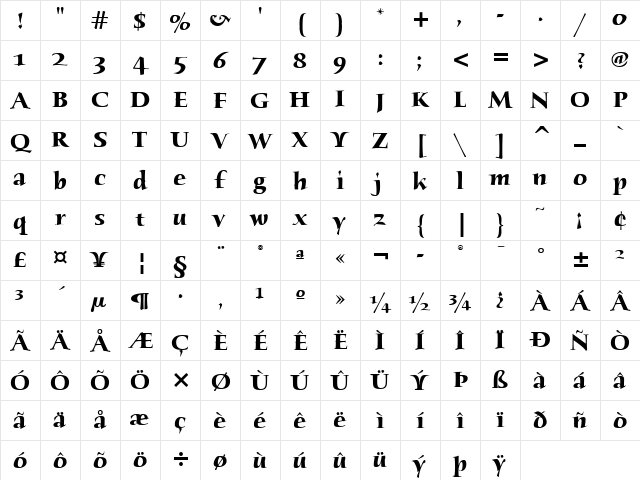
Complete 101! Abstrakt DeZign Regular glyph index. Displaying only characters natively supported by 101! Abstrakt DeZign Regular font.
101! Abstrakt DeZign is a composed and adaptable typeface that performs quietly and consistently across a wide range of design contexts.